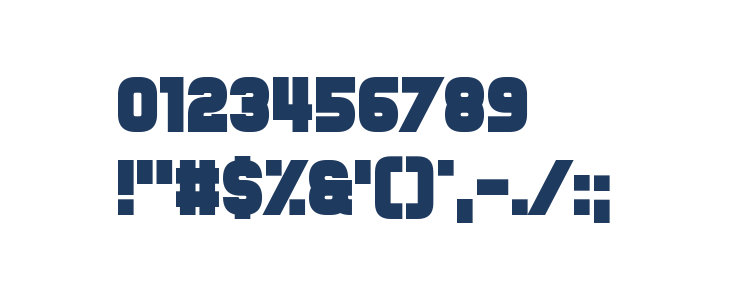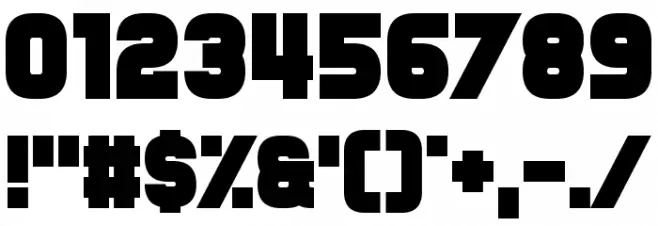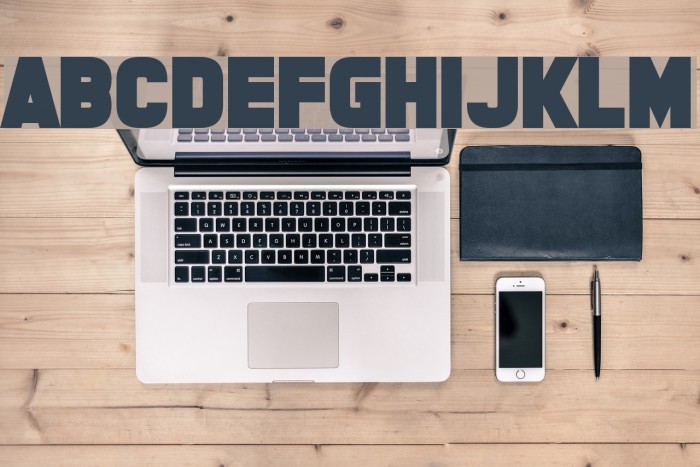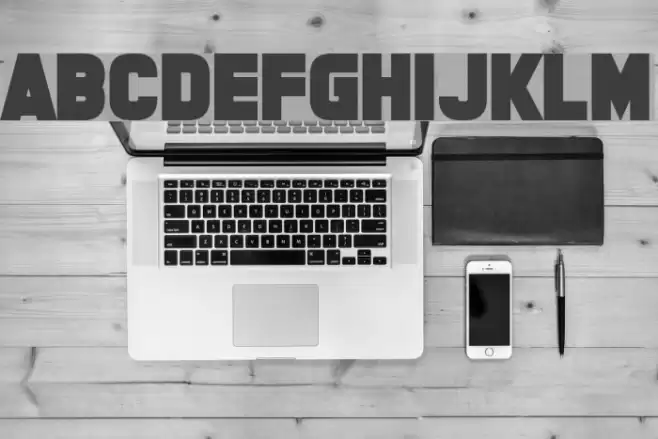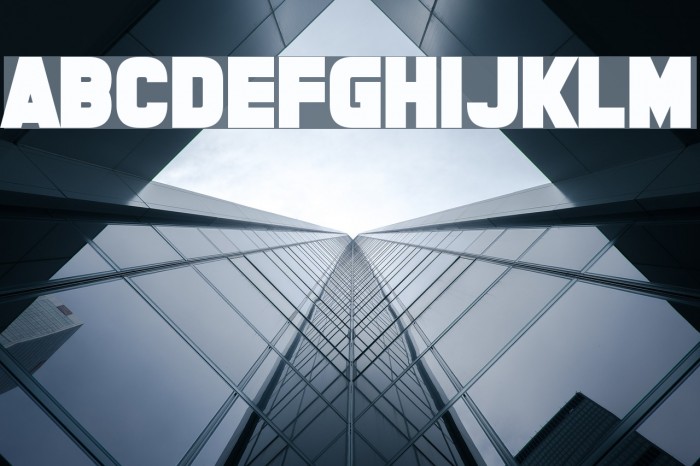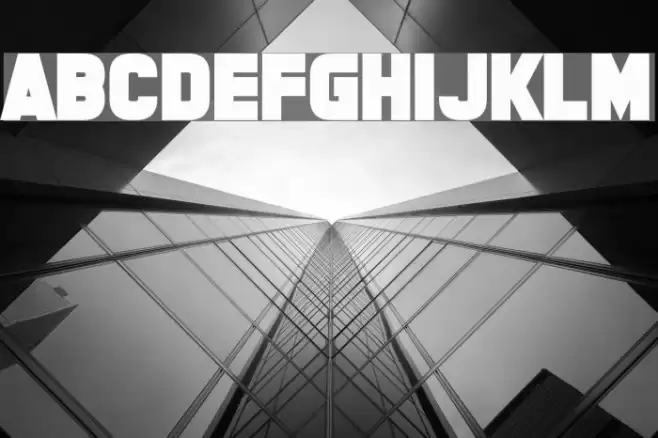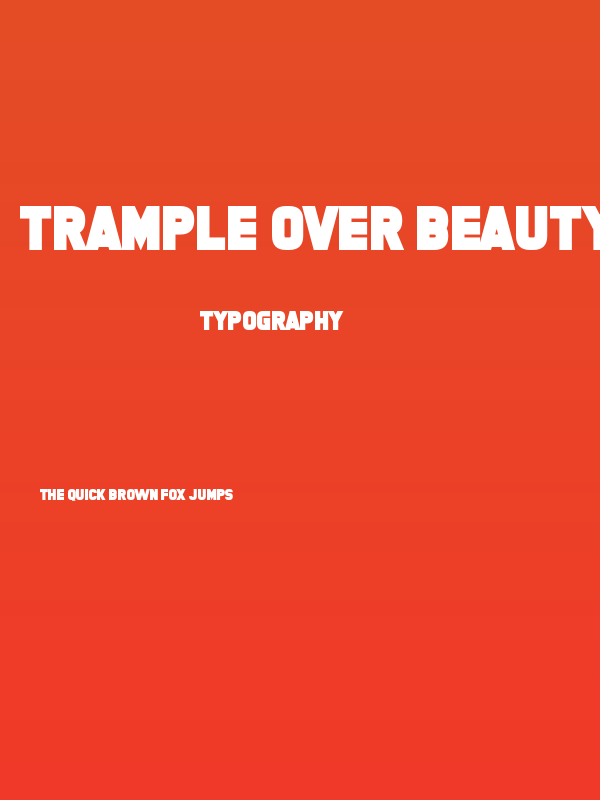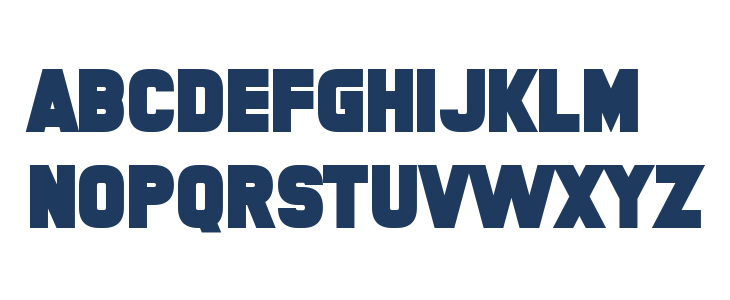
Trample Over Beauty Font
Trample Over Beauty Description
This font features bold, blocky characters with a strong presence, making it ideal for impactful designs. The uppercase and lowercase letters maintain a consistent width, contributing to a uniform appearance. The numbers and special characters are equally robust, ensuring legibility and emphasis. The overall design is modern and assertive, suitable for projects that require a bold statement. Its geometric shapes and clean lines give it a contemporary feel, while the heavy weight adds to its commanding look.
| Proposed Projects | Ideal for headlines, posters, branding, and any design requiring a strong visual impact. |